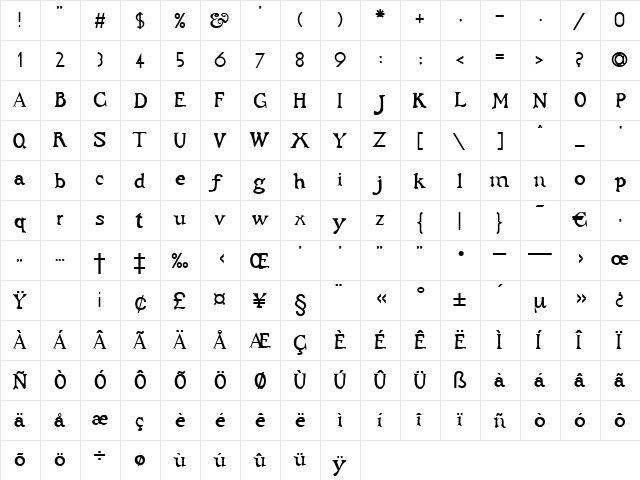
Unikum Regular
Design Context for Unikum Typeface
Unikum is a composed and adaptable typeface that performs quietly and consistently across a wide range of design contexts.